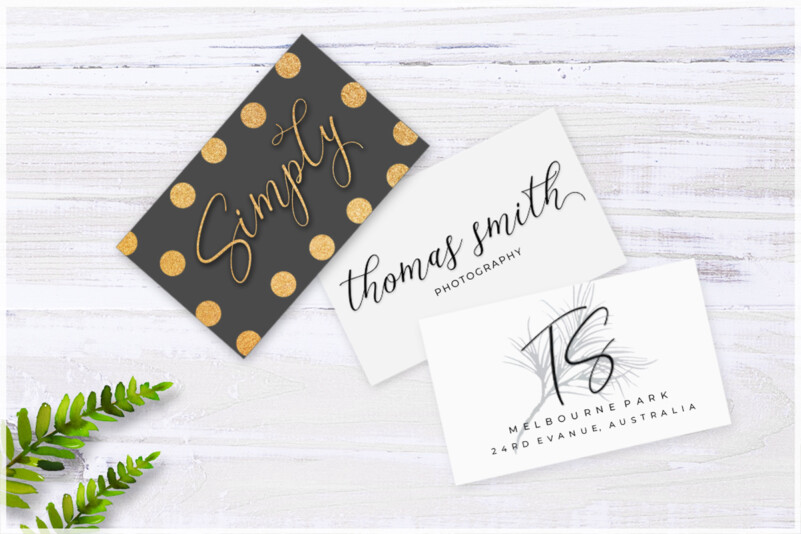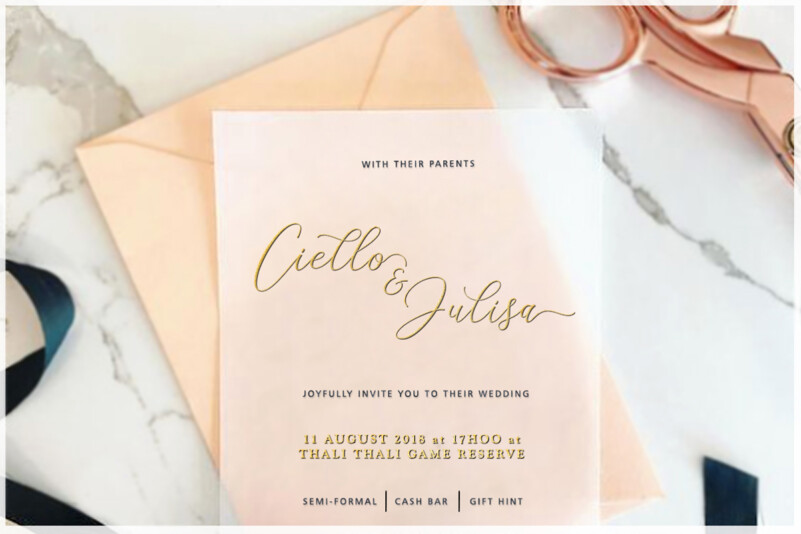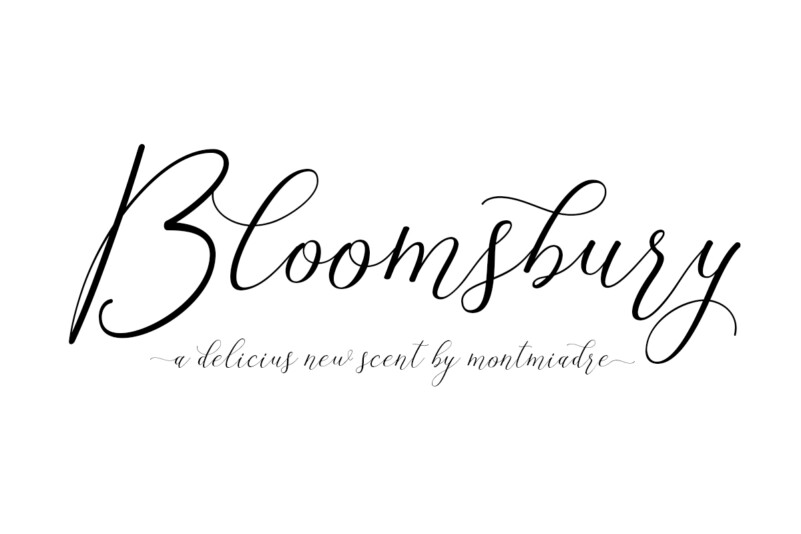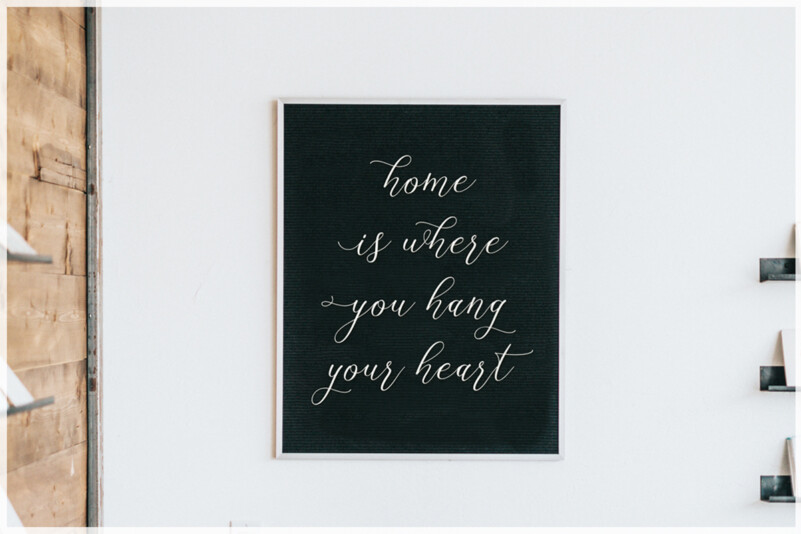
Sandria Script Font – A sweet calligraphy font, casual and dynamic with a dancing baseline, This font can be used easily and simply, perfect for Branding, Logos, Greeting Cards, Wedding Stationery, Quotes etc.